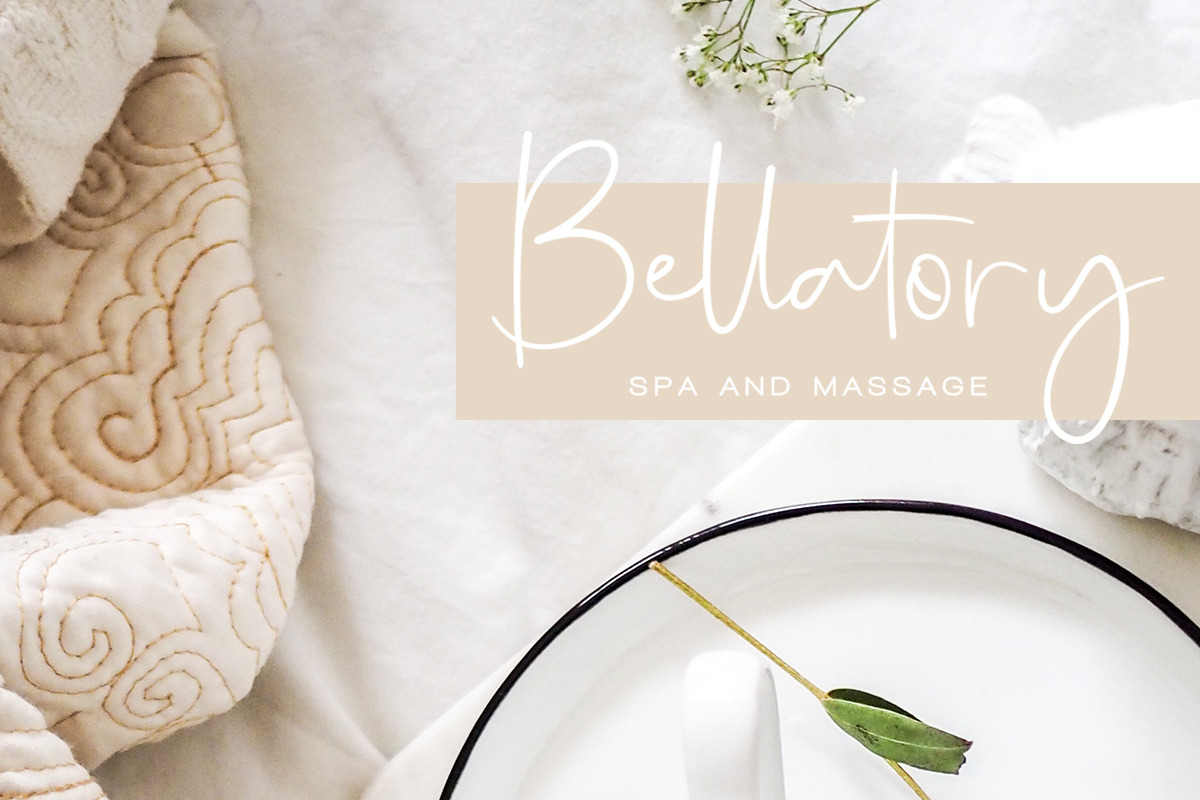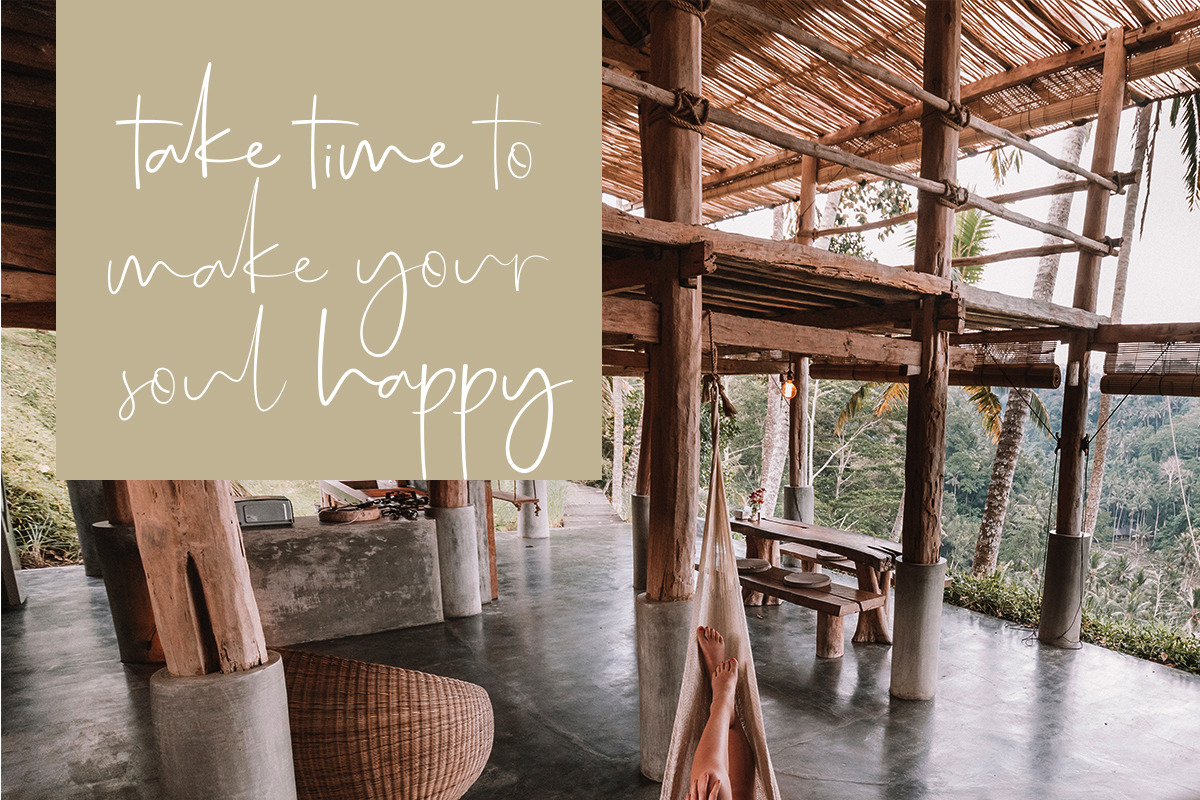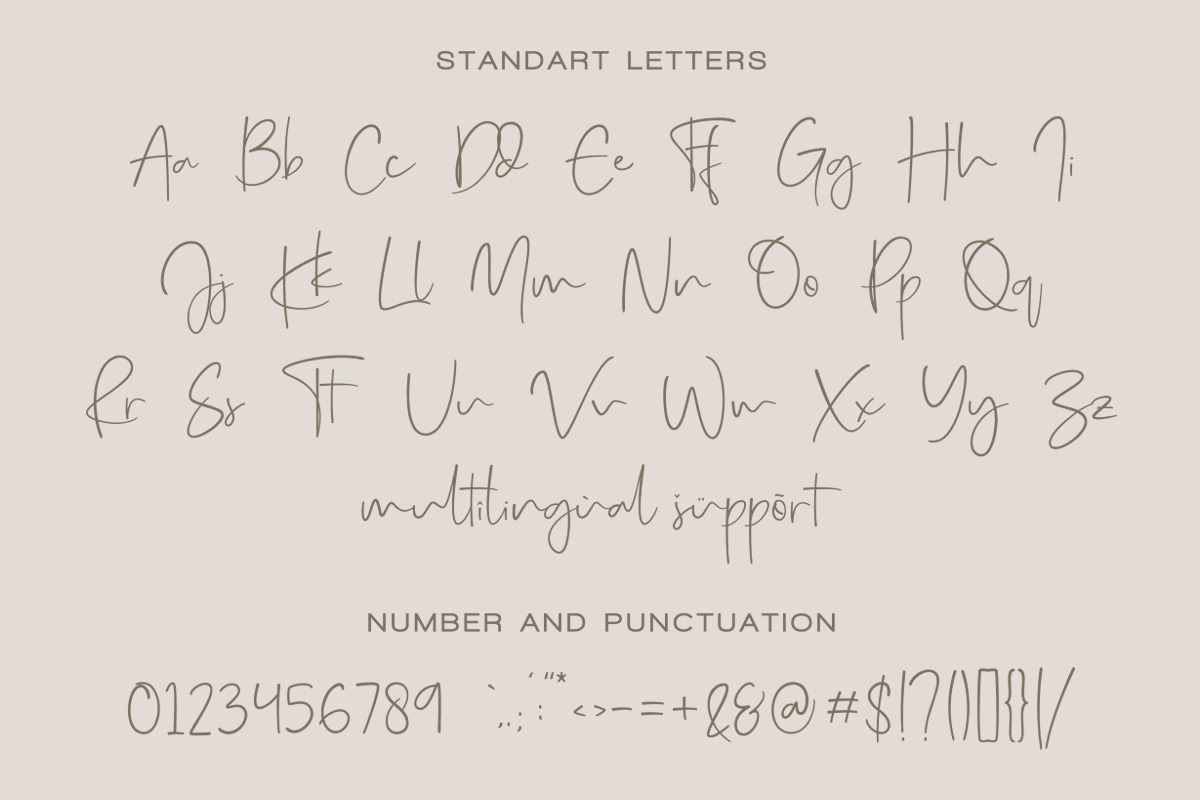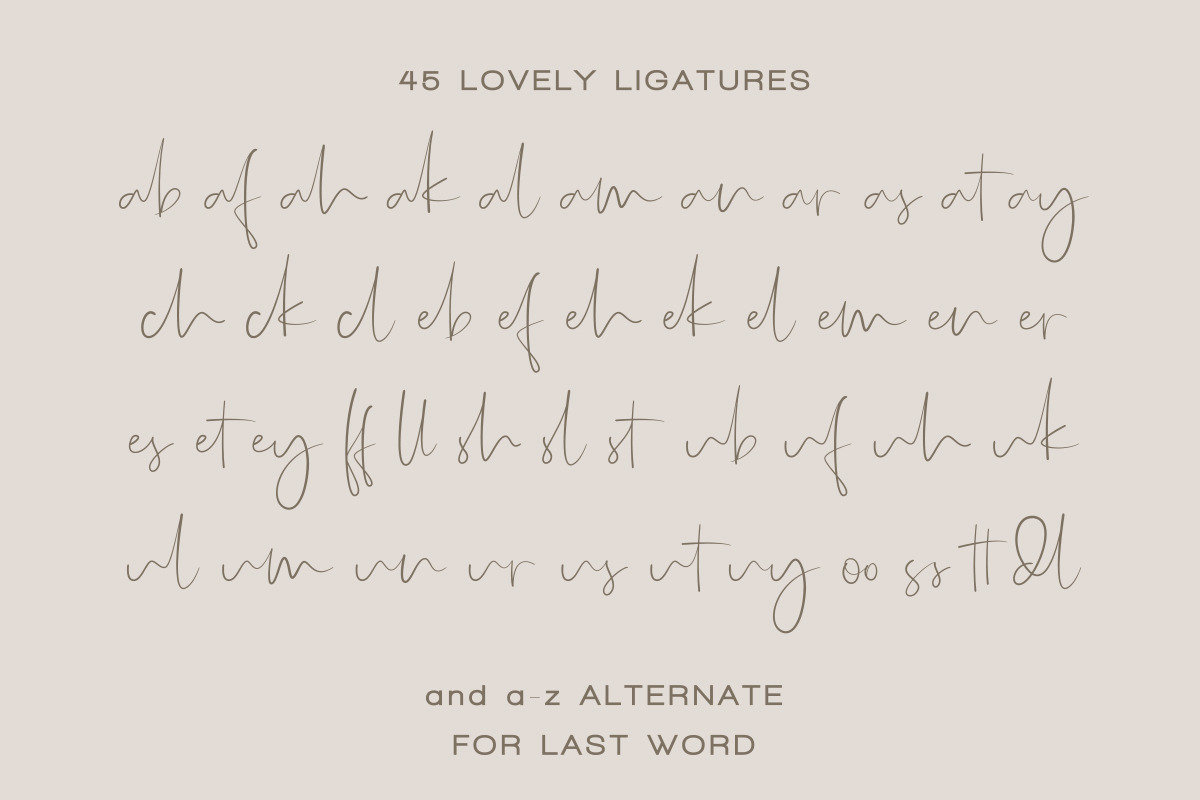
Real Kindly - Signature Script
Introducing. The New Signature Script, Real Kindly!
Real Kindly is a handwritten typeface coming with Regular and Bold versions. Its casual look makes it the perfect fit for signature logos, printed quotes, wedding invitation cards, social media headers, product packaging and a lot more!
Besides having 2 versions, Real Kindly have full set of uppercase and lowercase letters, multilingual symbols, numerals, punctuation, 45 beautiful ligatures, multilingual support, and have a-z alternate for last word. I think it's perfect for any project.
Multilingual :
à á â ã ä å è é ê ë ì í î ï ñ ò ó ô õ ö š ù ú û ü ý ÿ À Á Â Ã Ä Å È É Ê Ë Ì Í Î Ï Ñ Ò Ó Ô Õ Ö Ù Ú Û Ü Ý Ÿ Š
Ligature :
ab af ah ak al am an ar as at ay ch ck cl eb ef eh ek el em en er es et ey ff ll sh sl st ub uf uh uk ul um un ur us ut uy oo ss tt dl